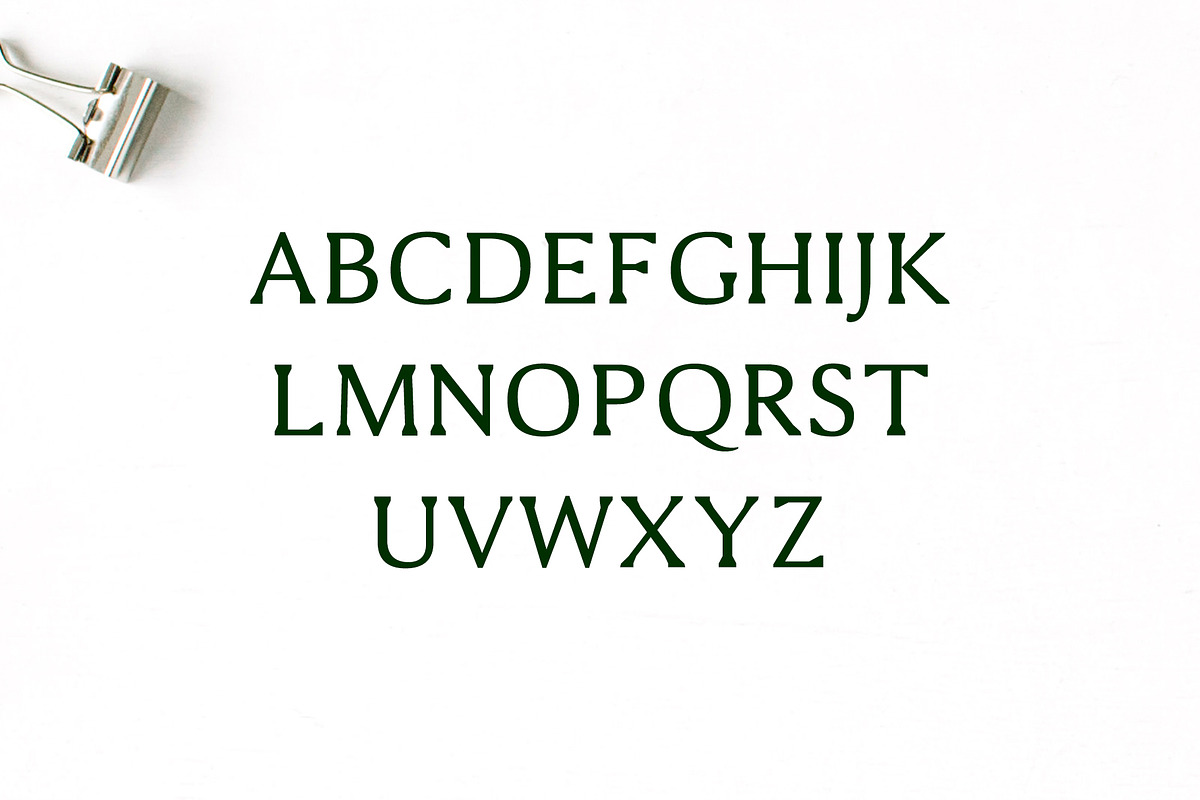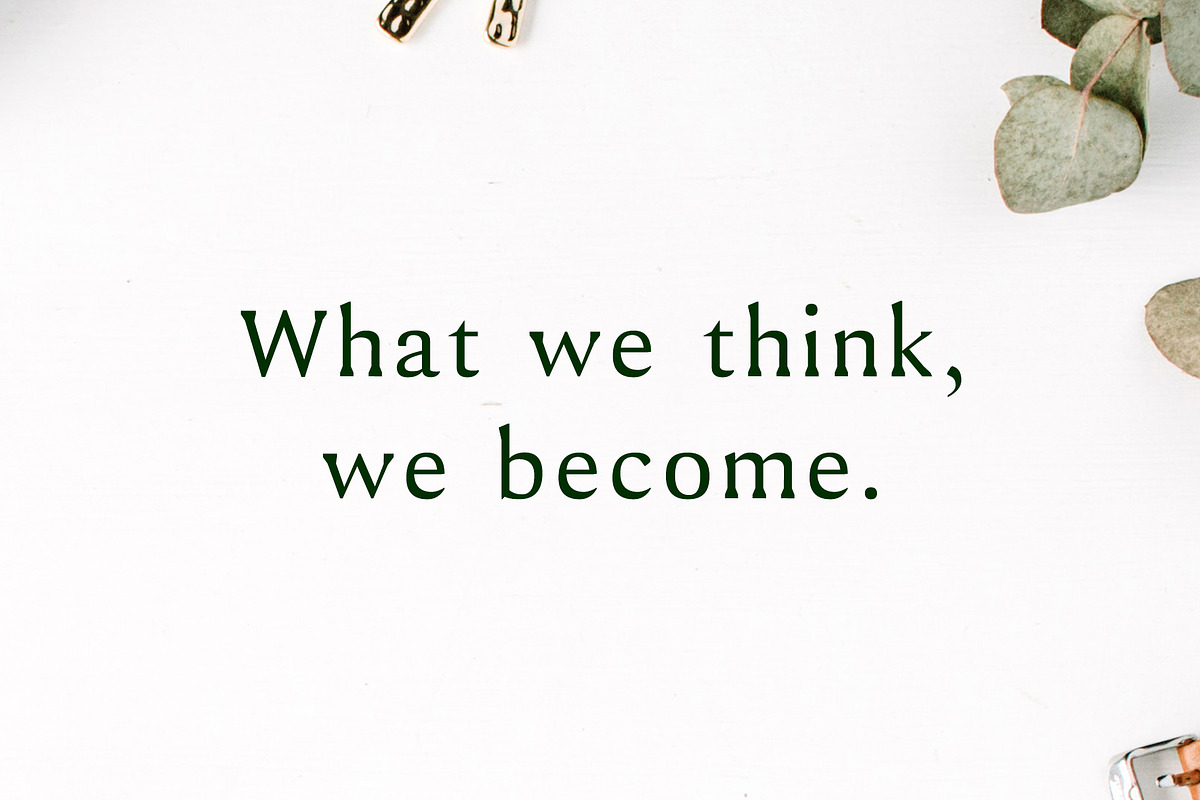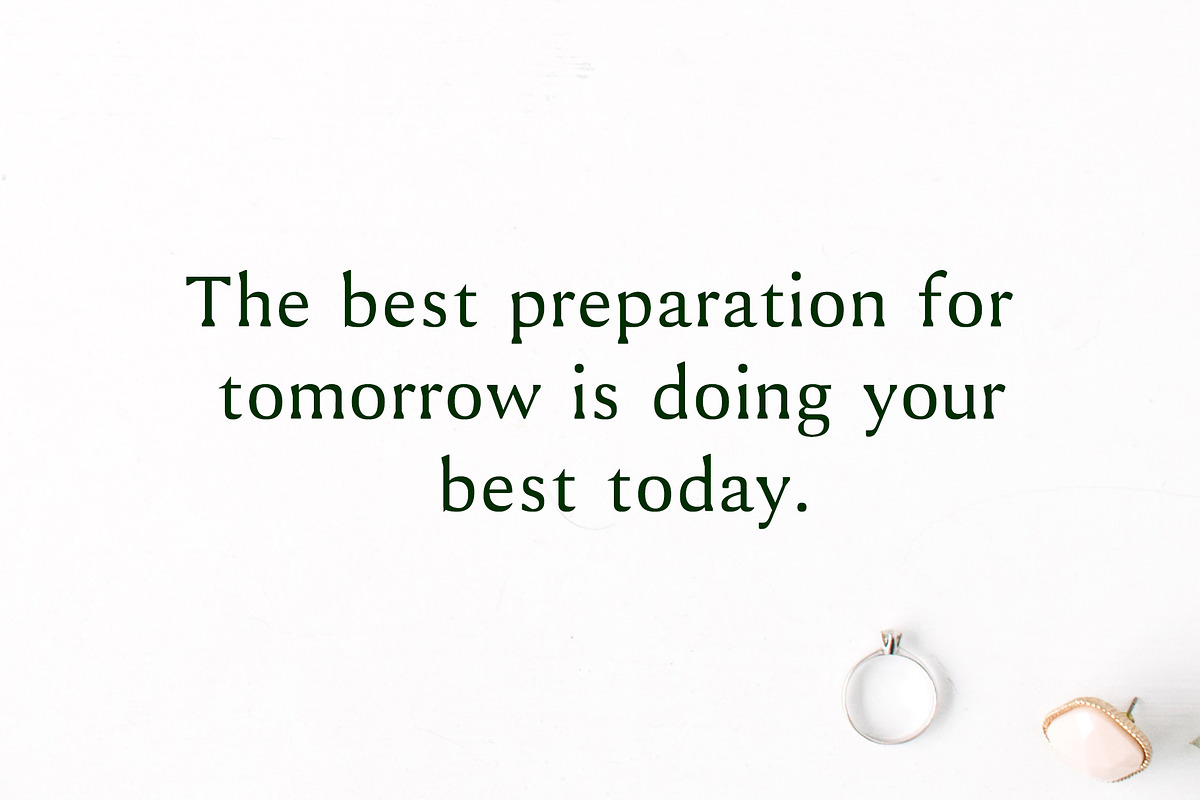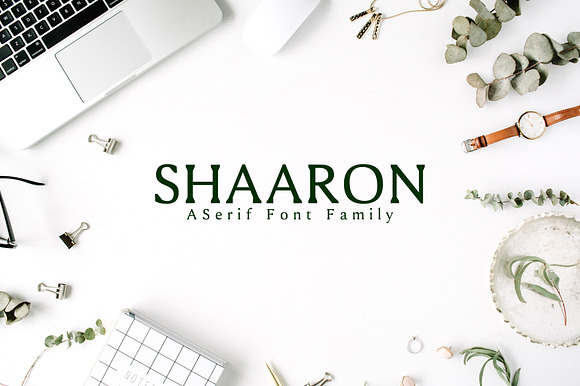
Shaaron A New Serif 2 Font Family
Shaaron A New Serif Font Family is a minimal serif font family, which contains 2 weights and It features unique and modern serif look and feel. Perfect for gorgeous logos, titles, web layouts and branding. Shaaron looks gorgeous in all caps with a wide-set spacing if you want to try a classy look, or beautiful on its own in capital and lowercase letters for something completely timeless.
Font Weight: Regular and Medium